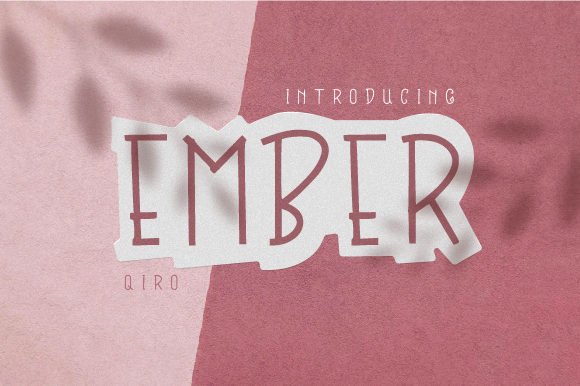
Introduction to Ember Font
Ember is a simple and neat lettered display font.
Its friendly style makes this font incredibly versatile, fitting a wide range of designs Add it to your creative projects and notice how it will make them stand out.
Why Choose Ember Font?
Ember Font offers exceptional quality and versatility, making it a valuable addition to your design toolkit. Whether you’re creating for personal projects or commercial use, Ember Font delivers professional results.